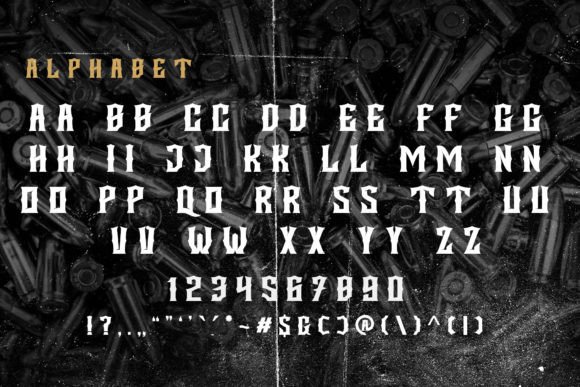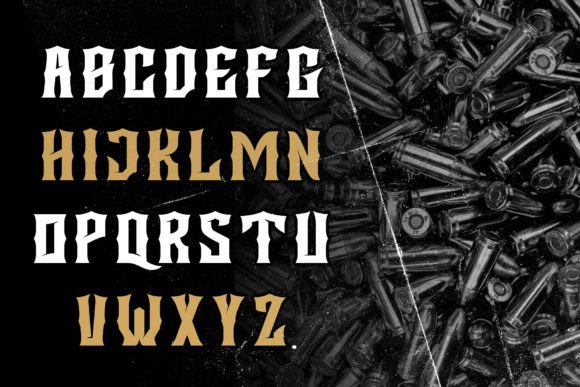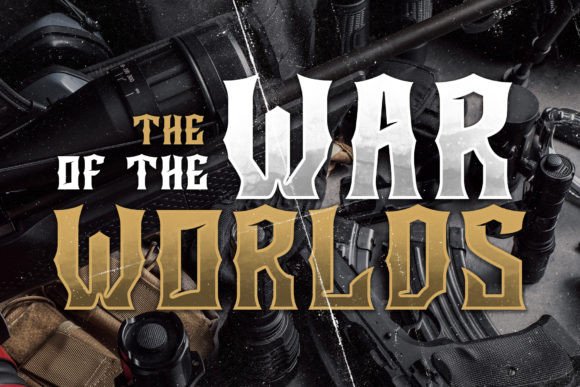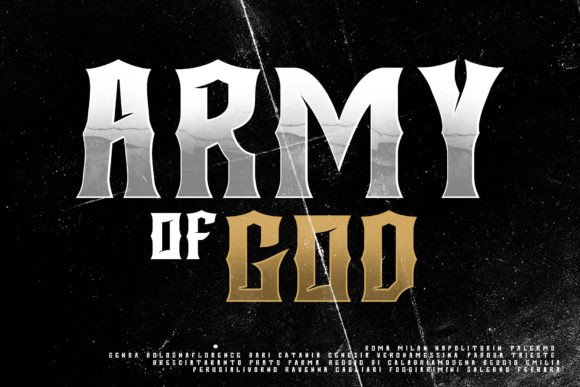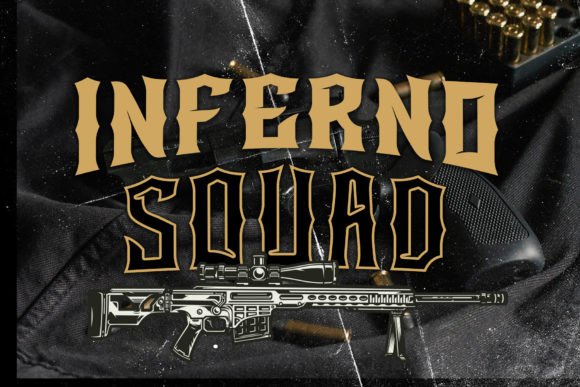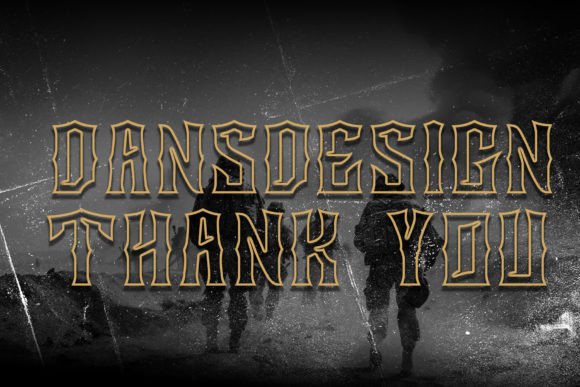
Introduction to Degrief Font
DEGRIEF Vintage Display Font is a distinct, highly detailed, and Horror Metal Font font.
It would make a great choice for exquisite Music, Posters, retro-urban designs, tattoo business branding, logos, vintage designs, and more .
Key Features of Degrief Font